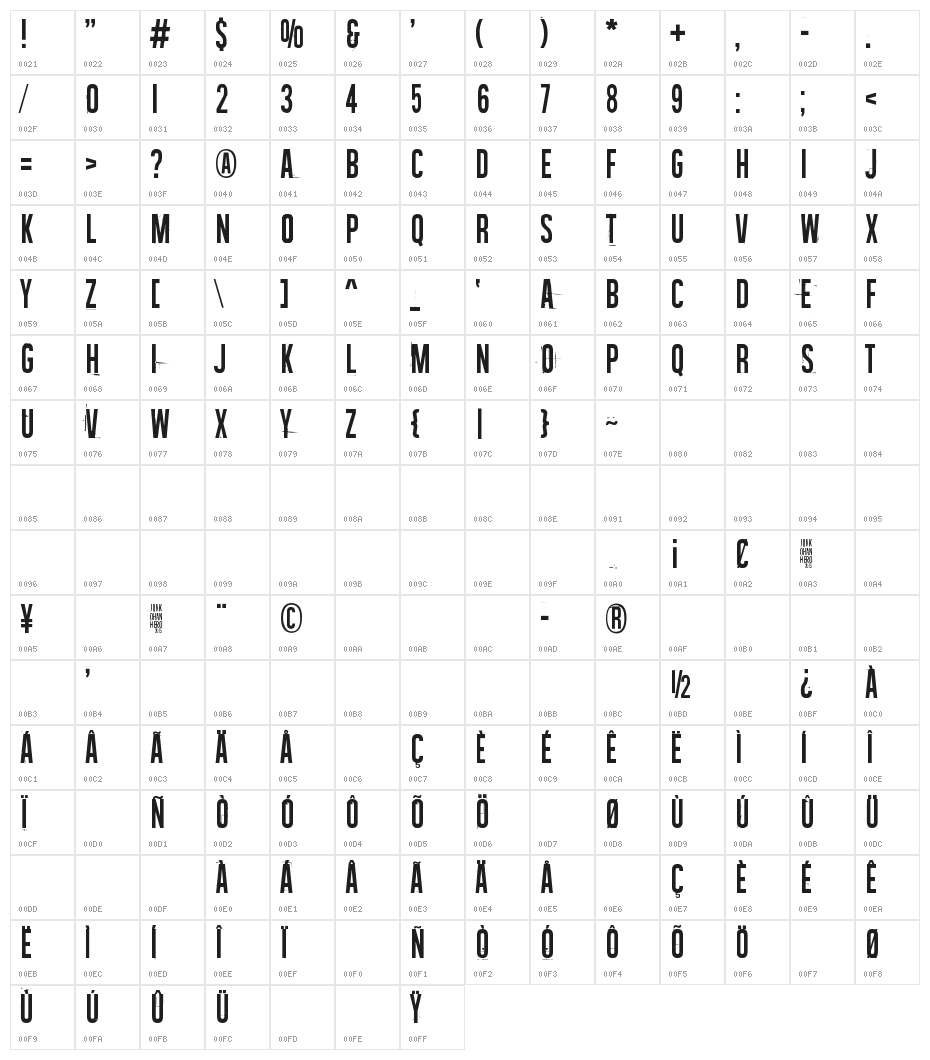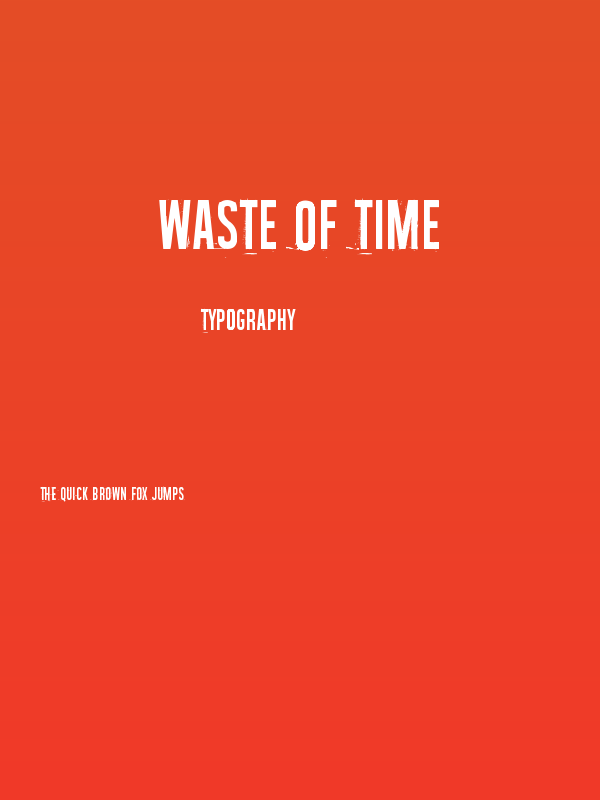
Waste of time Font
Waste of time Description
This font features a bold, distressed style with a strong, impactful presence. The characters are tall and narrow, giving it a condensed appearance. The texture is rough and worn, adding a vintage, grunge effect that makes it stand out. The uppercase and lowercase letters maintain a consistent height, while the numbers and special characters follow the same distressed aesthetic. This font is ideal for projects that require a bold statement with a touch of ruggedness.
| Proposed Projects | Ideal for posters, album covers, branding, and any design needing a bold, vintage look. |